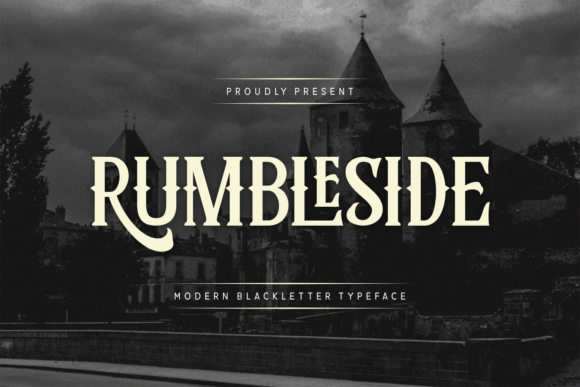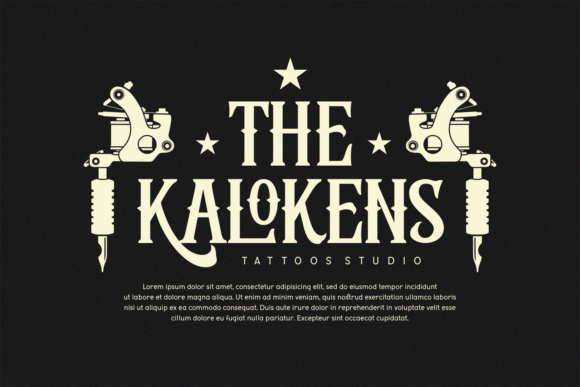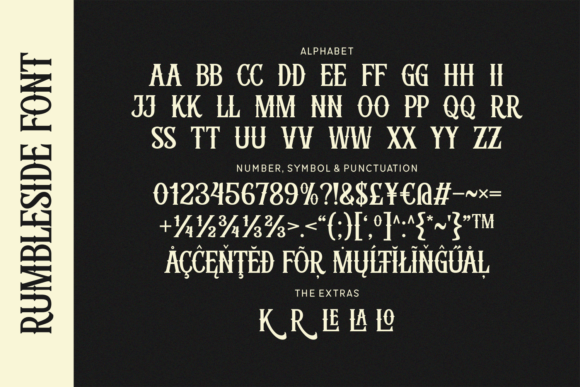
Rumbleside Font
Rumbleside is a bold blackletter font that combines classic style with modern flair. Its sharp edges and elegant curves make it perfect for creating eye-catching designs, logos, or headlines. This font brings a sense of tradition and sophistication, making it ideal for any project that needs a strong visual impact.